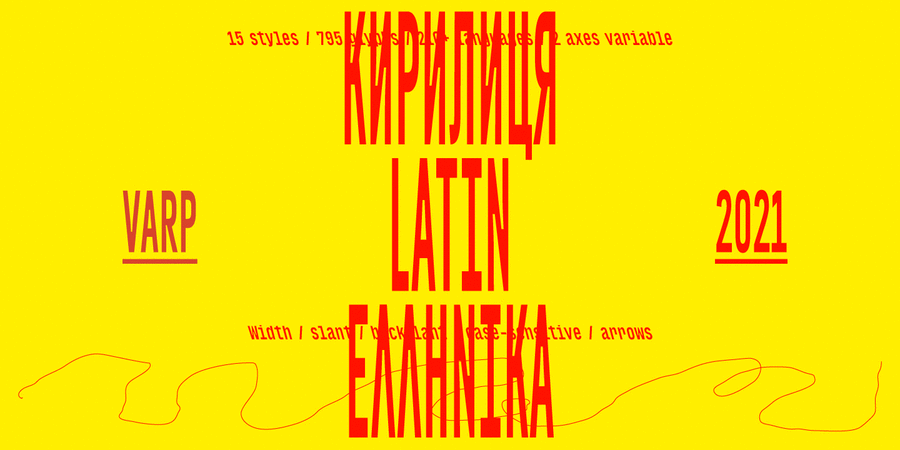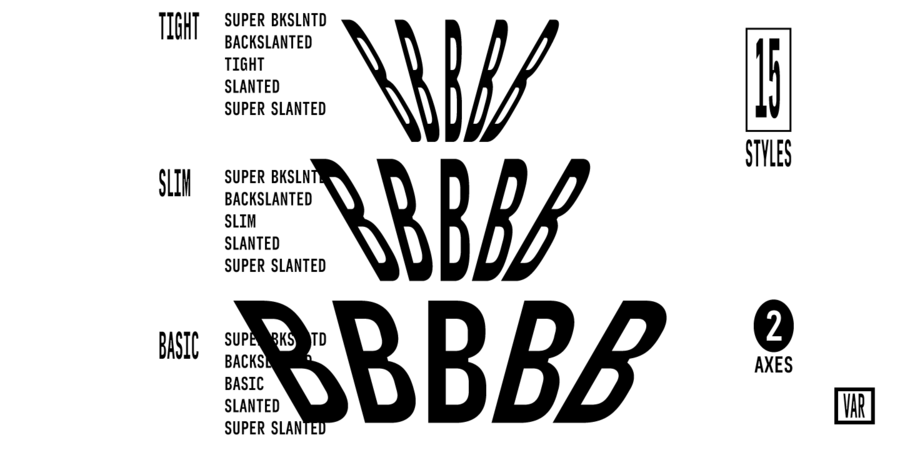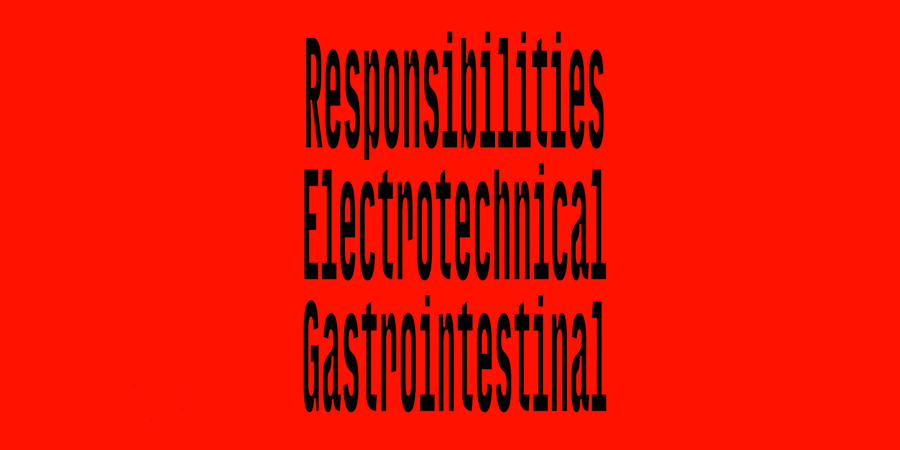
Varp is a narrow 2-axis variable geometric typeface with slight reverse contrast inspired by utilitarian and technical design. In Slim and Tight styles, the reverse contrast is enhanced. Typeface is adjustable in width, as if by mechanical deformation of proportions, which is often found in technical and transport markings. The letterforms are based in part on the shapes of DIN fonts, with the deliberate addition of contrasting connections, sharp spurs and massive ink traps for sharpness. With the help of special spacing, selective kerning and adjusted letter width, the effect of a monospaced font is created with no obvious "holes" in the text set, while maintaining a special rhythm. In addition to the width, Varp is adjustable in tilt angle to an extreme 30 degrees and an intermediate 15 degrees in both directions. A font style Varp Slim Super Back Slanted is free for unlimited use under the "Desktop" and "Web" licenses. The typeface was designed by Maksym Kobuzan in 2021.
Associations for font family VarpTypeface personality and character:
electronic, cold, automatic, technogenic, crisp, cutting, urban, machine, urbanistic, rhythmic, loud, thin, close-fitting, compressed, computer, artificial, original, monotone, strange, dynamic, sharp, notable, splashy, impetuous, daring, fast, resolute, urgent, racing, vigorous, high-speed, active, bright, modern, vernacular, accurate, flat, convincing, rectangular, stable, solid, serious, reliable, self-assured, strong, industrial, static, important, logical, pragmatic, practical, engineering, military, iron, railway, schematic, workman, tall, steel, robust, technically, domestic, straight, army, rude, brutal, indifferent, space
computer, automation, electronics, equipment, design, city, hacker, IT, IT specialist, sci-fi, mathematics, technology, aviation, aircraft, speed, device, industry, machine tool, tool, factory, science, repairs, skyscraper, urban studies, engineer, institute, army, weapons, mechanical engineering, port, constructor, construction, building, railway carriage, scheme, railway, workman, packing, stock, machine, robot, astronomy, satellite, code, hardware, x-ray, press, helmet, uniform, building materials, box, depot, brick, gadget, programming, space, cinema Typeface exhibits stylistic traits: